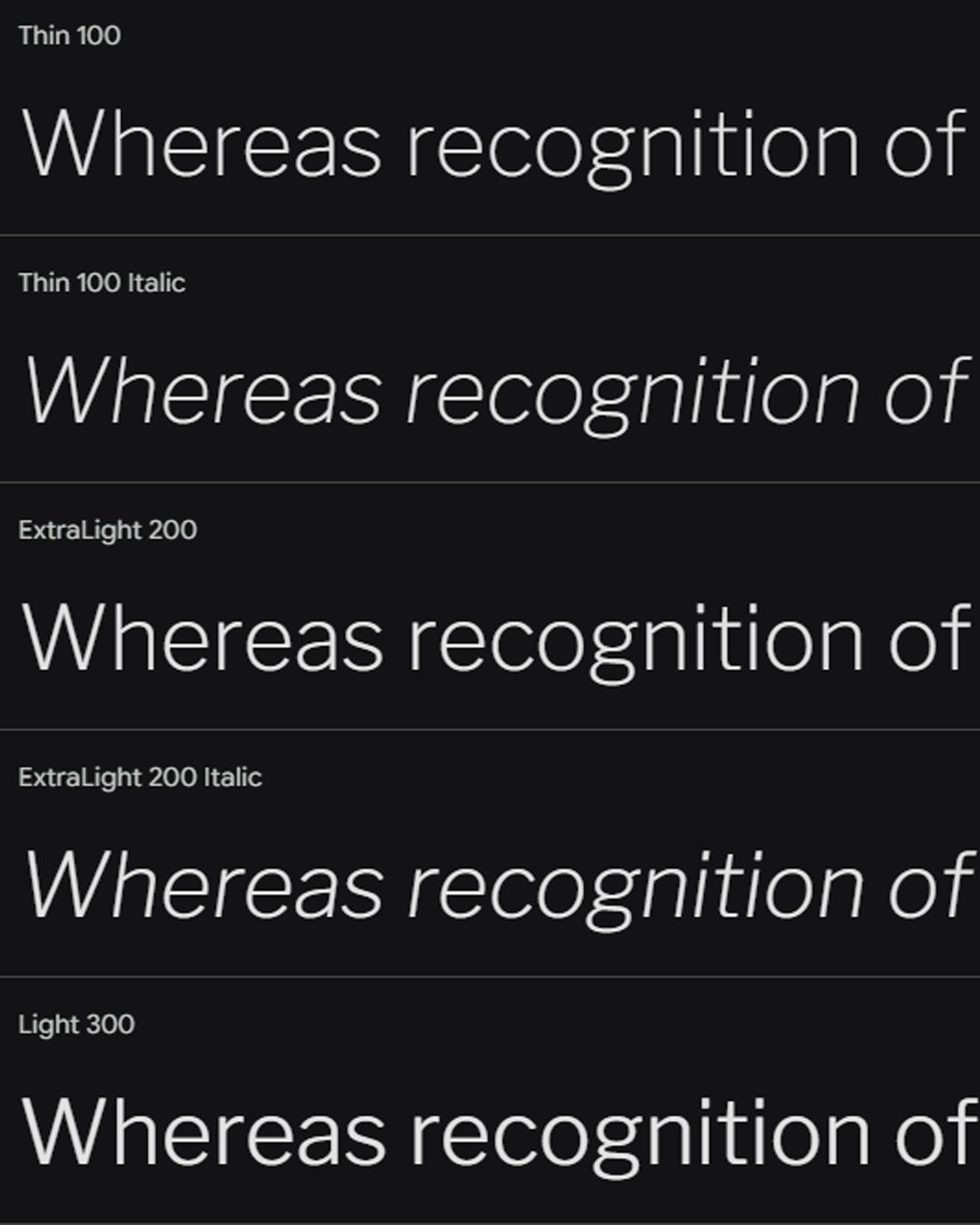
Elevate brand communication with the Corporate Office - Premium Fonts (Pack of 10) - Vol. 3.
Key Features:
🔤 10 business-ready font families (display + text pairs)
💡 Styles include neo-grotesk, humanist, geometric, refined serif, and condensed headline
🧭 Clean kerning, stylistic alternates/ligatures, and consistent glyph sets
🌐 Multilingual support (Latin + extended)
🖥️ Ideal for decks, UI labels, reports, and brand guidelines
Set a confident, contemporary tone across every touchpoint - clear, credible, and on-brand.